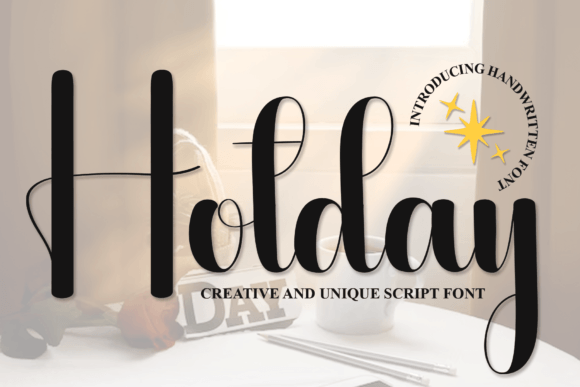
Step into the world of Hotday Font, the script font that will ignite your creativity and elevate your designs to new heights. Experience the elegance and sophistication of this flowing handwritten font, crafted with meticulous attention to detail to bring your projects to life.
With Hotday Font, let your words dance across the page, carrying a timeless charm that captivates and engages your audience. Dive into a world of possibilities and create designs that exude personality and leave a lasting impression.
Born from the vision of Roronoa zoro.S.P.D, Hotday Font is not just a font; it's an art form. Its graceful curves and distinctive characters add a touch of magic to any project, whether it's a captivating brochure, an enchanting invitation, or a heartfelt greeting card.
Immerse yourself in the beauty of Hotday Font and let your creativity soar. Transform your words into stunning visuals that communicate your message with eloquence and style. Discover the power of Hotday Font and unlock the true potential of your designs.